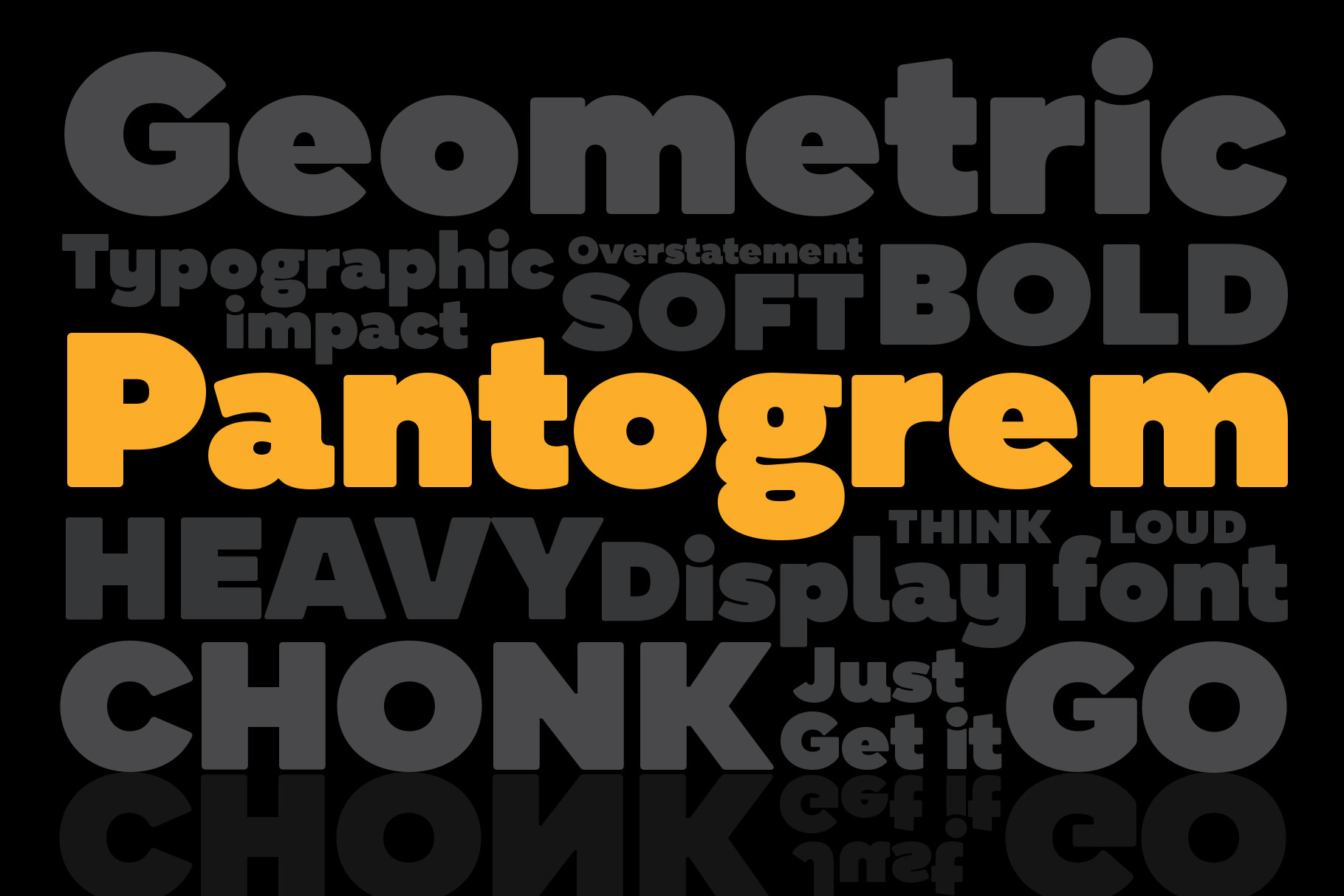
Pantogrem Font
Pantogrem is a bold, heavyweight typeface characterized by its soft, rounded edges and clean, contemporary aesthetic. Designed with modern design sensibilities in mind, Pantogrem strikes a balance between strength and approachability, making it a versatile choice for a wide range of visual communications.
Its generous letterforms and smooth curves ensure excellent legibility at larger point sizes, which makes it particularly well-suited for display applications. Whether you're creating eye-catching posters, headline text, logos, product packaging, or cohesive branding materials, Pantogrem delivers a strong visual impact without sacrificing clarity.